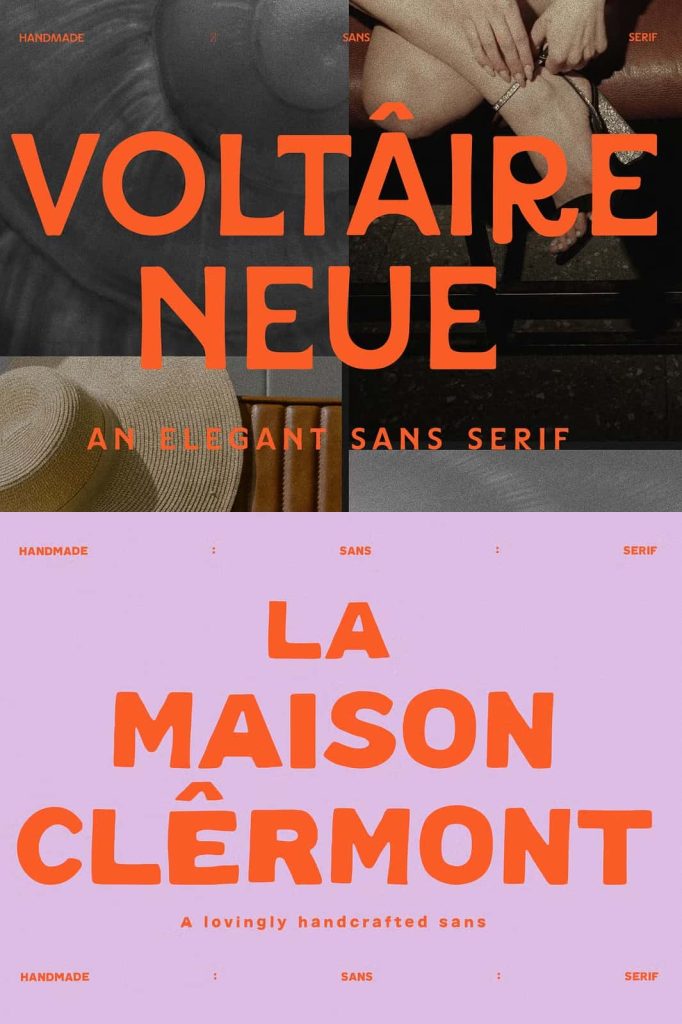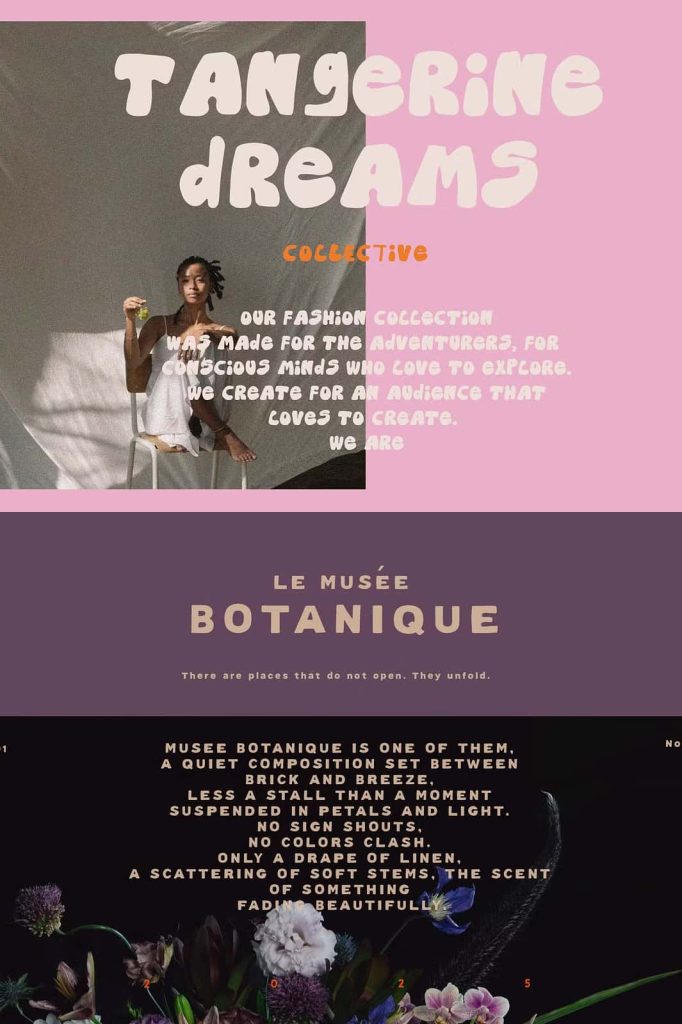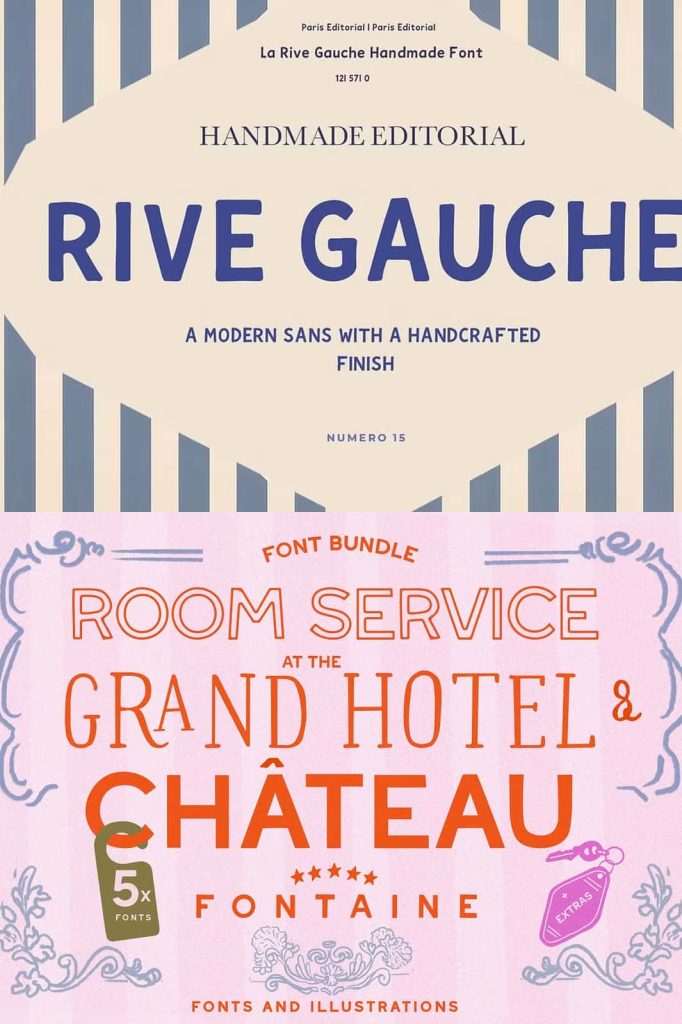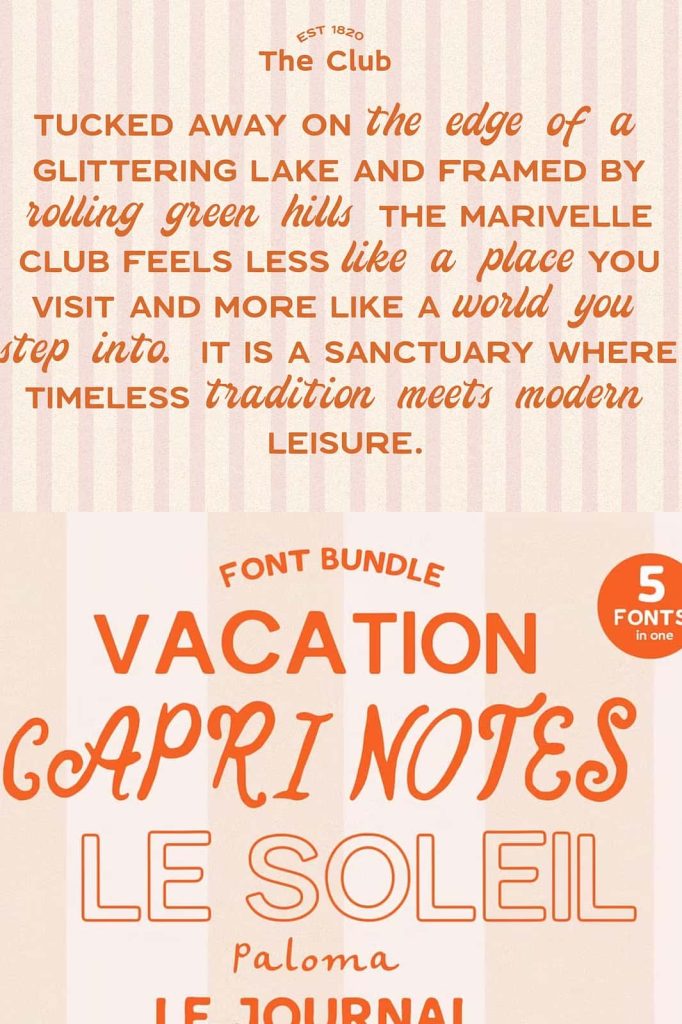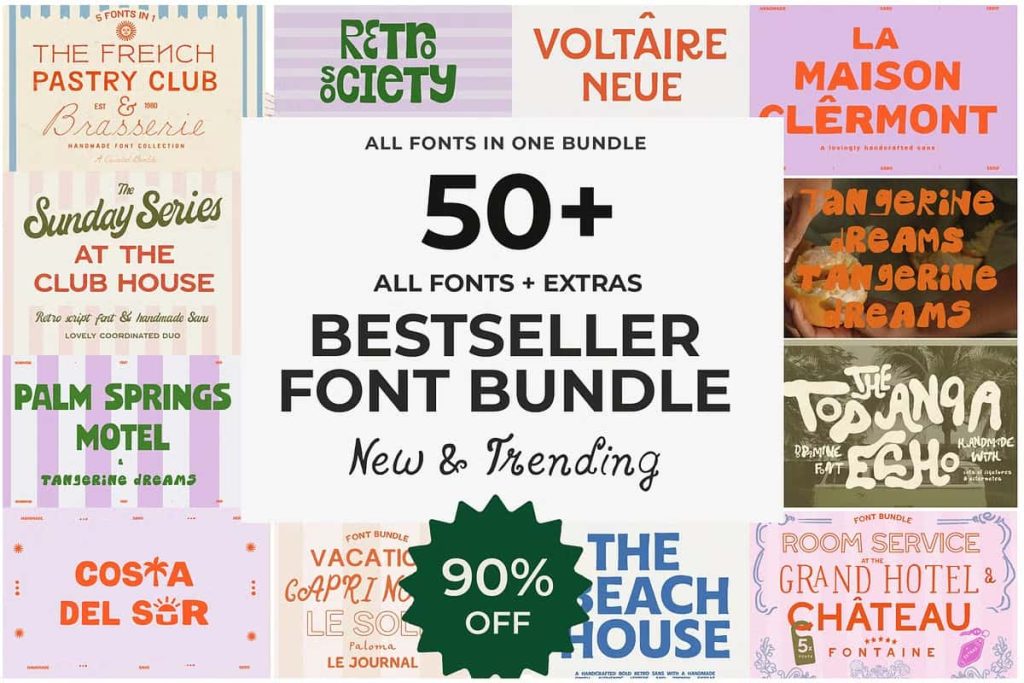
Modern Hand Lettered Font Library: Complete Handmade Font Bundle
The Modern Hand Lettered Font Library delivers a comprehensive collection of handcrafted typefaces designed to elevate your creative projects. This bundle brings together every font created within the collection, each one carefully drawn, lettered by hand, and refined to achieve a polished and professional finish. Designers gain access to a diverse range of styles that combine authenticity, creativity, and versatility in one complete package.
A Complete Collection of Handcrafted Fonts
This font library offers more than just variety. It provides a thoughtfully curated selection of typefaces that reflect different moods, styles, and design needs. From clean and modern sans serif fonts to expressive scripts and decorative display styles, each font contributes to a cohesive yet flexible system.
Every typeface in the bundle originates from a hand-drawn process. This approach ensures that each character carries subtle imperfections and unique details that digital fonts often lack. The result is a collection that feels natural, authentic, and visually engaging across all applications.
Wide Range of Styles for Creative Freedom
The Modern Hand Lettered Font Library includes a rich variety of font styles that allow designers to explore endless creative possibilities. Whether you aim for a minimal, elegant, playful, or vintage look, this bundle provides the tools you need to achieve your vision.
Each category within the library serves a specific purpose. Sans serif fonts offer clarity and simplicity, making them ideal for modern layouts. Serif fonts introduce sophistication and structure, while scripts and calligraphy styles add personality and movement. Display fonts bring boldness and character, helping your designs stand out.
Font Styles Included in the Bundle
- Handmade sans serif fonts for clean and modern designs
- Playful marker fonts with expressive strokes
- Elegant serif fonts for refined typography
- Whimsical script and calligraphy fonts
- Modern display fonts with bold visual impact
Ligatures and Alternates for Authentic Design
Most fonts in this library include ligatures and stylistic alternates that enhance the natural appearance of your typography. These features allow you to replace standard characters with more dynamic variations, creating text that feels less repetitive and more organic.
Ligatures improve the flow between letters, ensuring smooth transitions that mimic real handwriting. Alternates provide additional design options, giving you the flexibility to customize your work and achieve a unique look. Together, these features help you produce designs that feel handcrafted and professional.
Perfect Font Pairings for Every Project
The Modern Hand Lettered Font Library simplifies the process of pairing fonts by offering combinations that naturally complement each other. You can mix bold vintage scripts with elegant hand lettering or combine whimsical calligraphy with clean sans serif fonts. These pairings help you create balanced compositions with clear hierarchy and visual harmony.
Designers often spend significant time searching for fonts that work well together. This bundle removes that challenge by providing pre-compatible options, allowing you to focus on creativity rather than technical decisions.
Popular Pairing Ideas
- Bold vintage script with minimal sans serif
- Elegant hand lettering with classic serif fonts
- Whimsical calligraphy with modern display fonts
- Handmade fonts combined for layered typography
Versatile for Branding, Social Media, and More
This font library adapts to a wide range of design applications. Use it for branding projects, logo design, packaging, social media graphics, and editorial layouts. Its versatility ensures that you can maintain a consistent visual identity across different platforms while still exploring diverse styles.
Content creators, designers, and business owners can use this bundle to build engaging visuals that capture attention and communicate effectively. The handcrafted nature of the fonts adds a personal touch that resonates with audiences.
Why Choose the Modern Hand Lettered Font Library?
The Modern Hand Lettered Font Library stands out as a complete and versatile solution for designers who value authenticity and creativity. It combines a wide range of styles, advanced typographic features, and thoughtfully designed pairings into one cohesive collection.
If you want to expand your typography toolkit with fonts that feel natural, expressive, and professional, this bundle offers everything you need. It empowers you to create unique designs, experiment with different styles, and produce work that feels both modern and handcrafted.